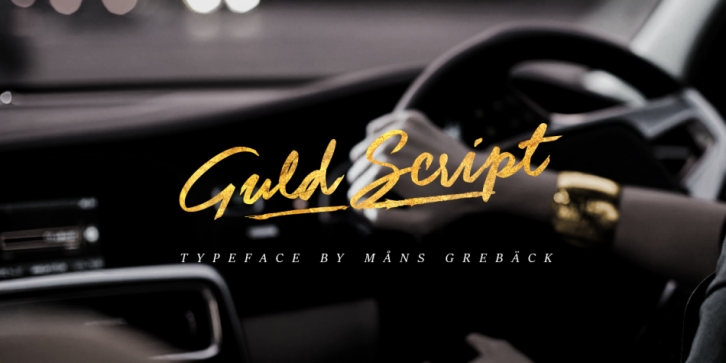
Designed by Måns Grebäck, Guld Script is a hand drawn and script font published by Aring Typeface AB.
Guld Script is a brush typeface with vibrant strokes; sloppy and wet, yet simple and pure.